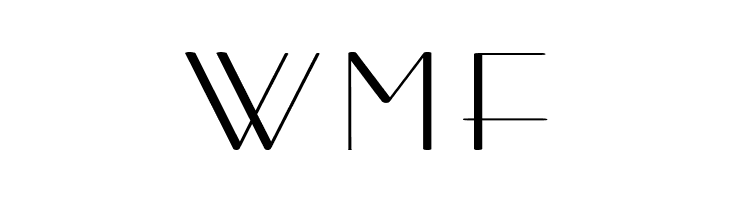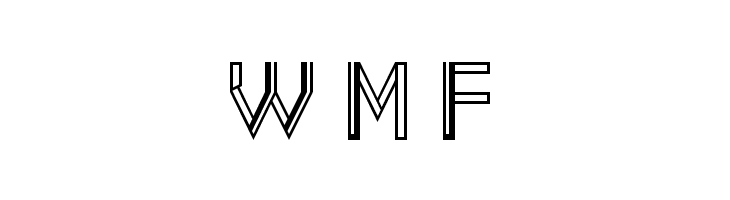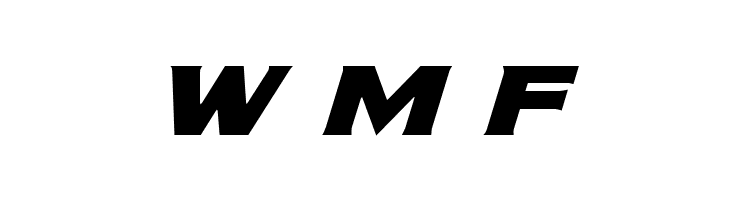
A modern, bold, and oblique sans-serif font with a dynamic style.
A bold, modern sans-serif font with a heavy weight and clean lines.
A modern, medium-weight sans-serif font with a clean and geometric design.
A tall, narrow font with a modern and sleek design.
A modern outline font with clean, geometric shapes and a bold, consistent outline.
A bold, geometric font with a modern, cut-out style.
A high-contrast, elegant font blending modern and vintage styles.
A minimalist, geometric font with thin strokes and a modern aesthetic.
A modern, circular font with a geometric and minimalistic design.
A modern, geometric font with a three-dimensional folded effect.
A bold, modern font with geometric shapes and tight spacing.
A bold, modern serif font with classic influences and strong character presence.
A bold, oblique serif font with a modern-antique blend.
A modern oblique font with classic elegance and moderate stroke contrast.
A modern geometric font with consistent stroke width and elegant numerals.
A bold, geometric font with a unique halftone effect, perfect for modern and edgy designs.
A bold, geometric font with sharp angles and a modern aesthetic.
A bold, geometric font with overlapping outlines for a modern, chaotic look.
A modern script font with elegant, flowing cursive strokes.
A modern, lovely script font with an elegant italic style.
A sleek, modern font with clean lines and a minimalist aesthetic.
A bold, modern sans-serif font with clean lines and a strong presence.
A modern, geometric sans-serif font with balanced proportions and a sleek design.
A sleek, modern oblique font with thin, elongated characters.
A modern, monospaced font with a clean and minimalistic design.
A modern, handwritten font with a playful and artistic style.
A bold, italicized font with a modern, dynamic style.
A bold, semi-italic font with a modern and dynamic style.